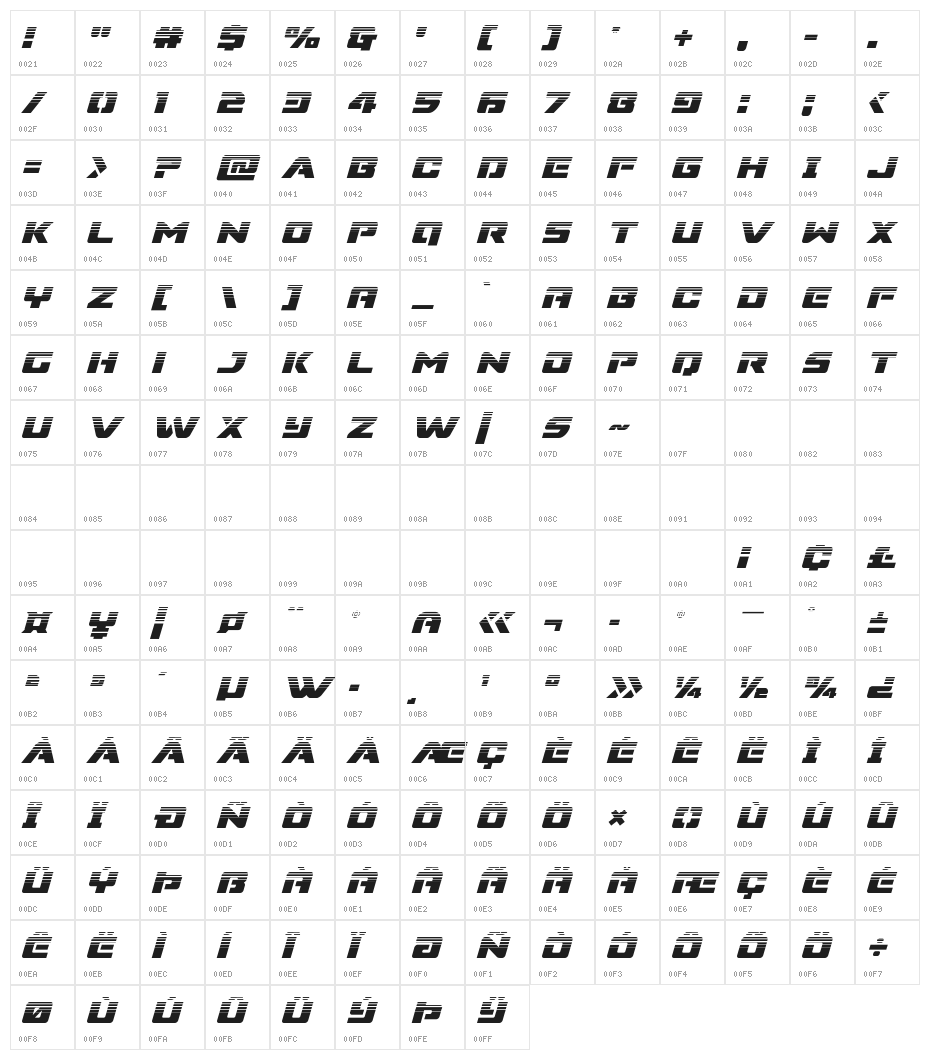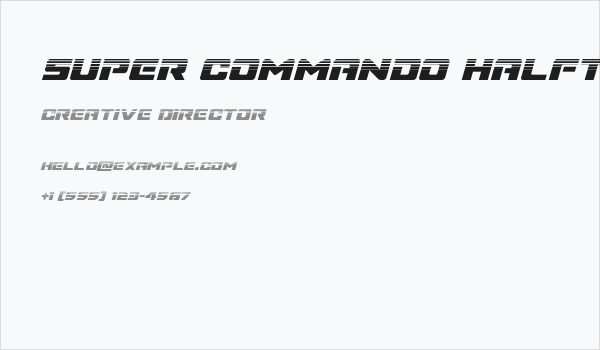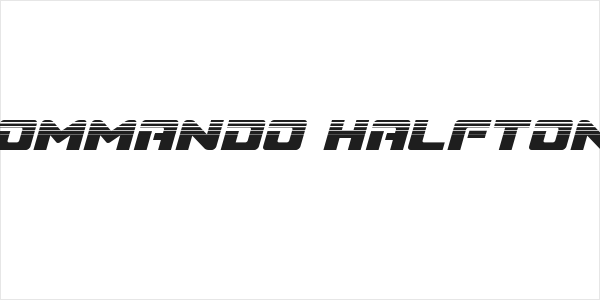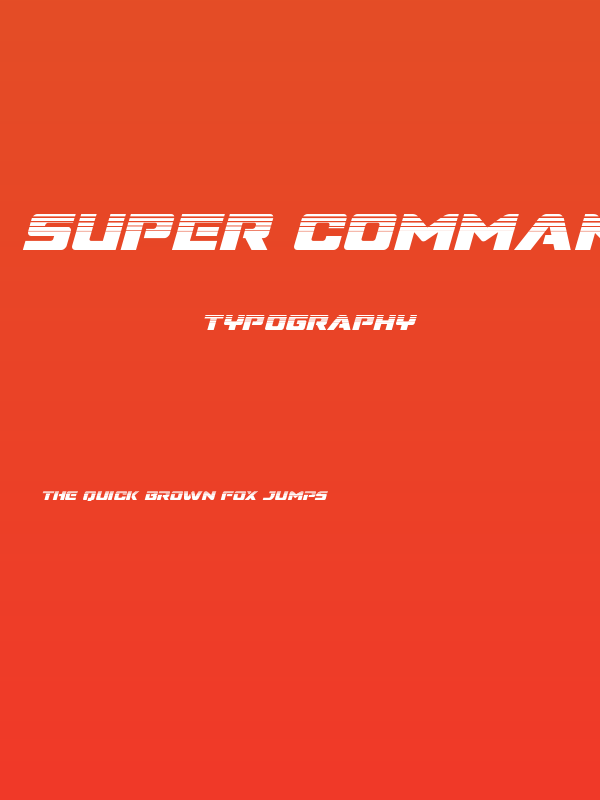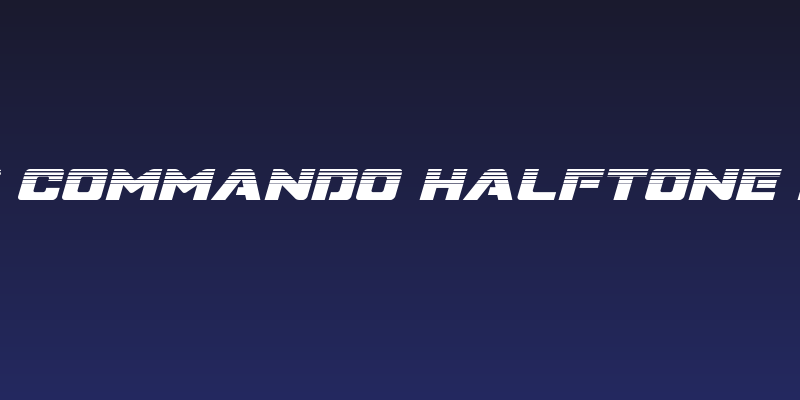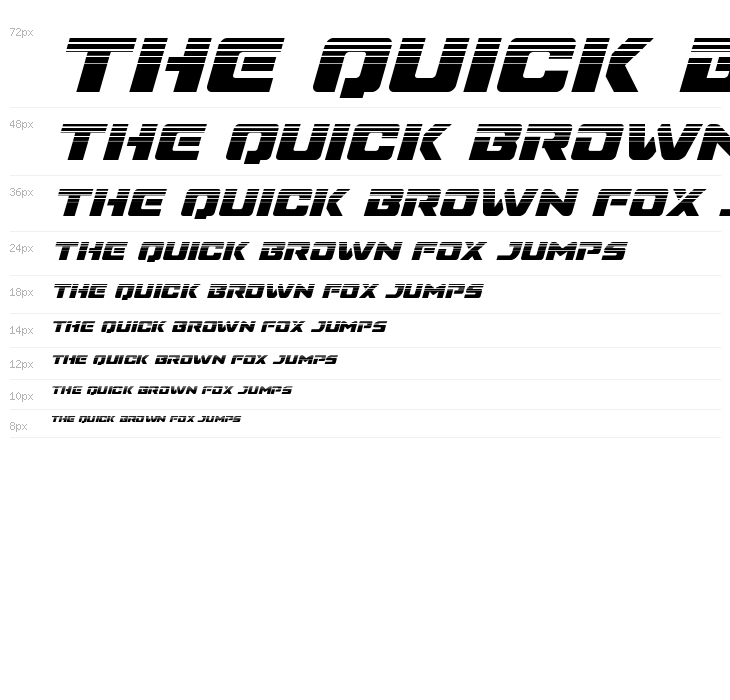
Super Commando Halftone Italic Font
Super Commando Halftone Italic Description
This font features a bold, dynamic style with a futuristic and industrial feel. The characters are italicized, giving them a sense of motion and speed. Each letter is composed of solid, angular shapes with a halftone pattern that adds texture and depth. The uppercase and lowercase letters maintain a consistent design, with the uppercase being slightly more pronounced. Numbers and special characters follow the same stylistic approach, ensuring uniformity across all glyphs. This font is ideal for projects that require a strong, impactful visual presence.
Overall StyleFuturistic, Industrial
Proposed ProjectsIdeal for sci-fi themed posters, video game graphics, branding for tech companies, and dynamic sports event promotions.